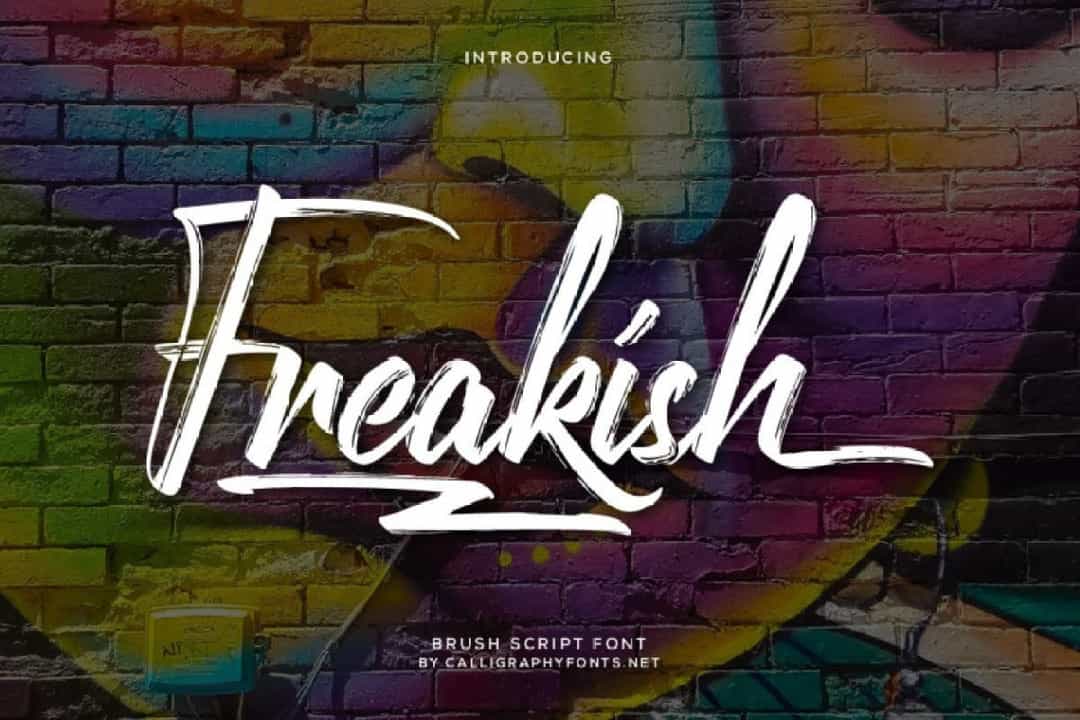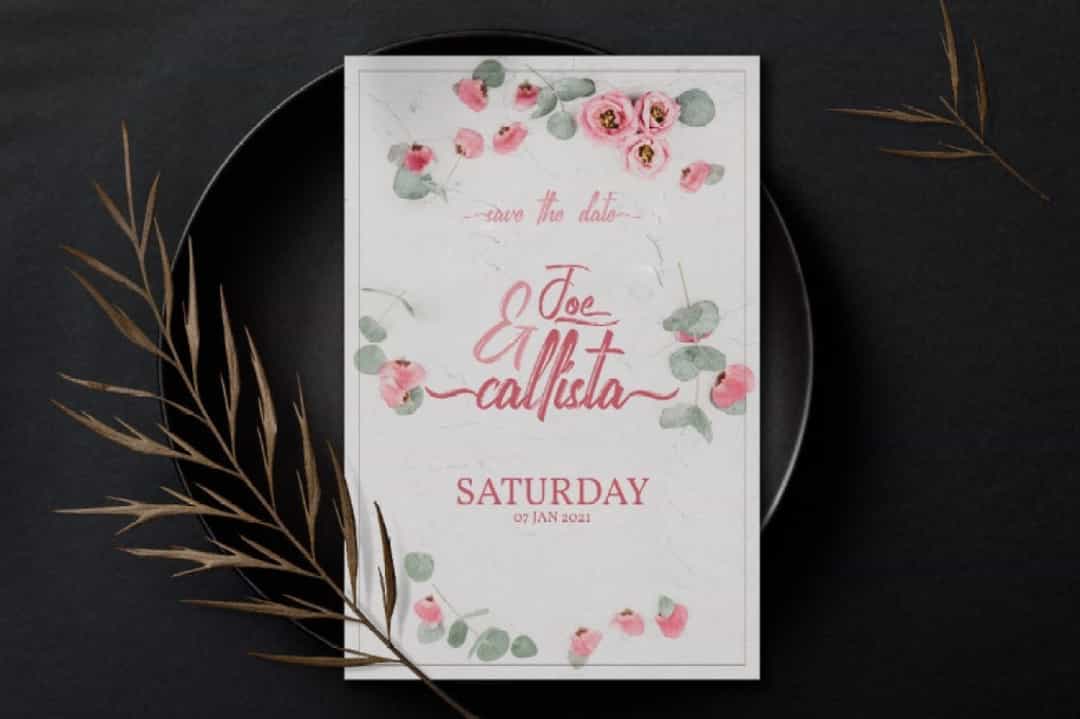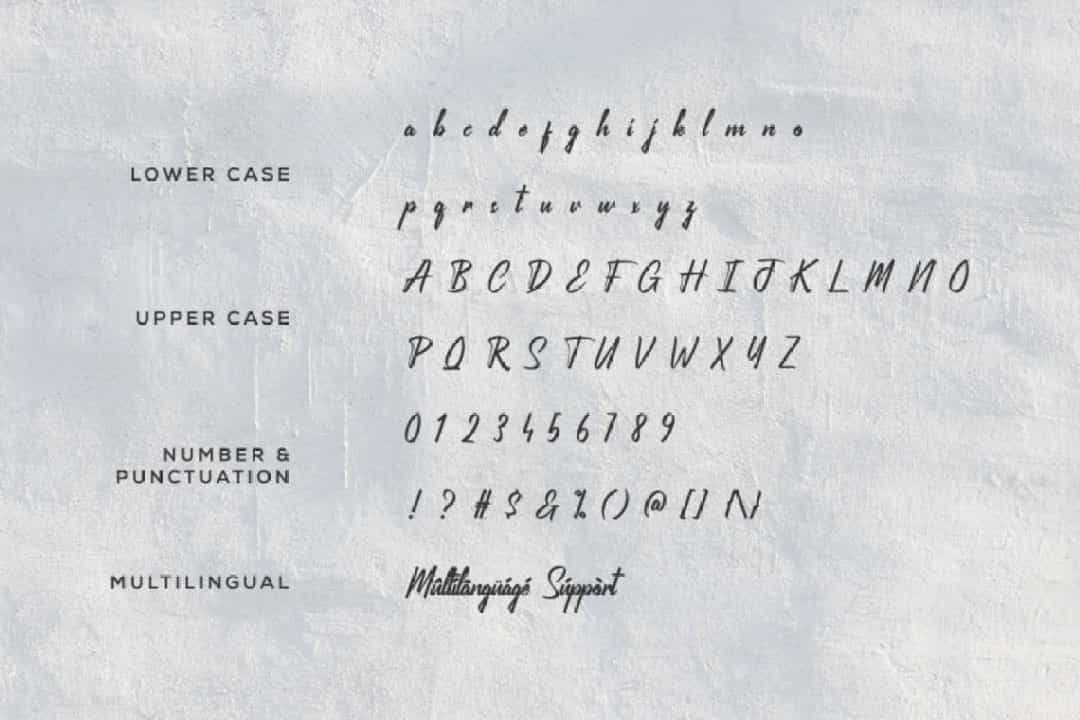
Freakish is an elegant brush font with an extraordinary texture. Boasting an eye-catching script and classical aesthetics that exudes class, Freakish features handwritten script that stands out with great style – not forgetting amazing designs that will surely capture any audience’s eye!